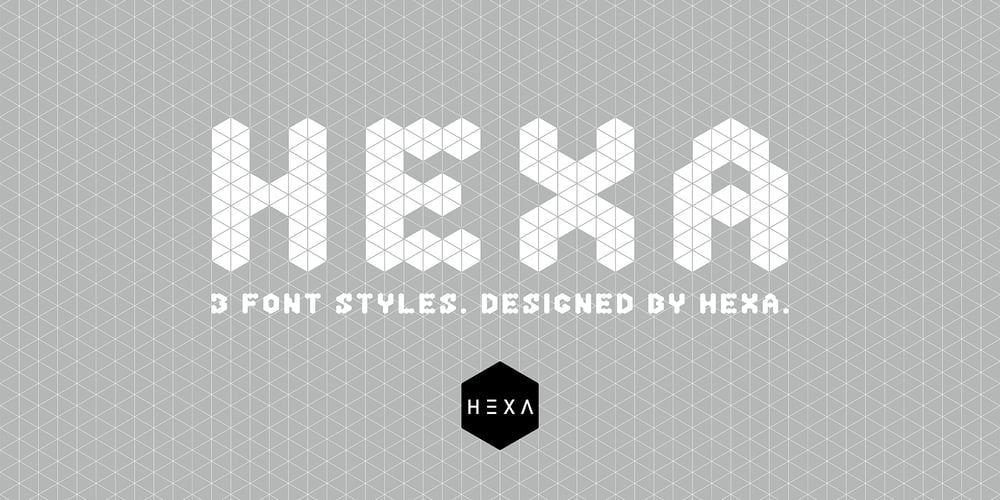
Hexa Font Family was designed by Junsu Hwang and published by Hexa. Hexa contains 3 styles and family package options. The font HEXA is inspired by the Hexagon. The HEXA fonts are dynamically and uniquely designed typefaces based on the grid systems of the hexagon that extends infinitely. From this image, we have created the HEXA font.Hexa is Latin-based and a completely crafted font that consists of 3 typefaces. Each typeface contains 190 sets of characters. This font family is in all-caps fonts, and we provide different styles of uppercase and lowercase glyphs with the exception of letters c, ç, and comma/ single low-9 quotation mark. In lowercase glyphs, we emphasize the image, character, and identities of Hexa. The font family includes regular, black, and thin. We created the witty expression with Hexa’s regular identity; thin emphasizes the lines; black fills in the blanks.Hexa is a monospaced fonts. So kerning is not applied.We recommend using our fonts for big-sized uses. This typeface is a display font and looks more attractive in larger formats than on main texts.Features:-190 characters-Monospaced fonts-All-caps fonts (different styles provide uppercase and lowercase)